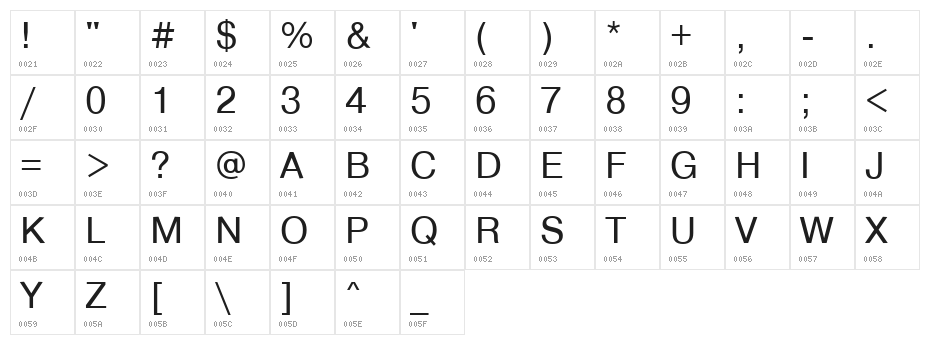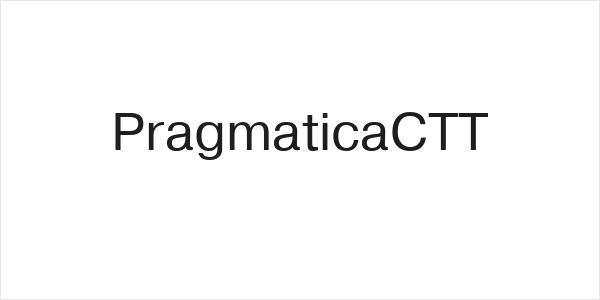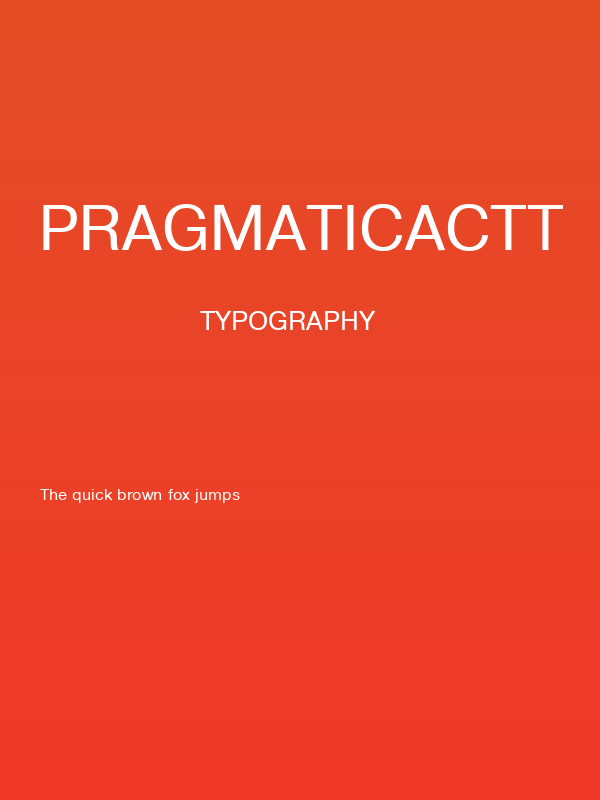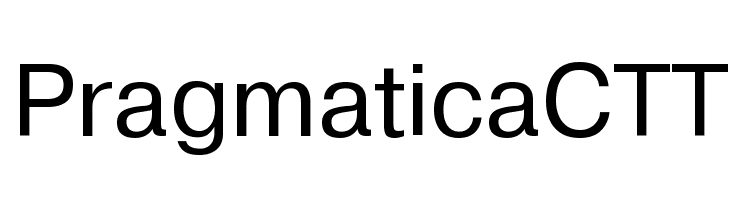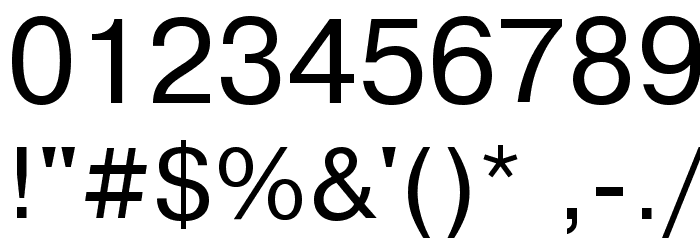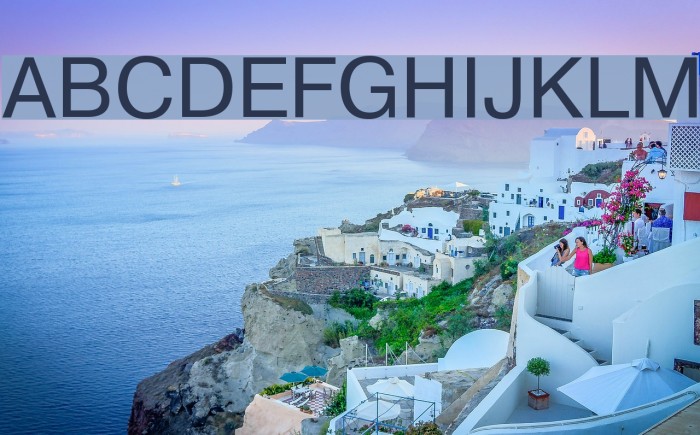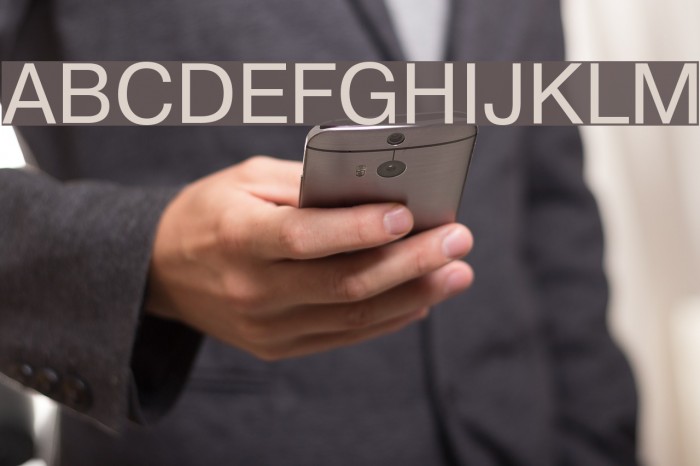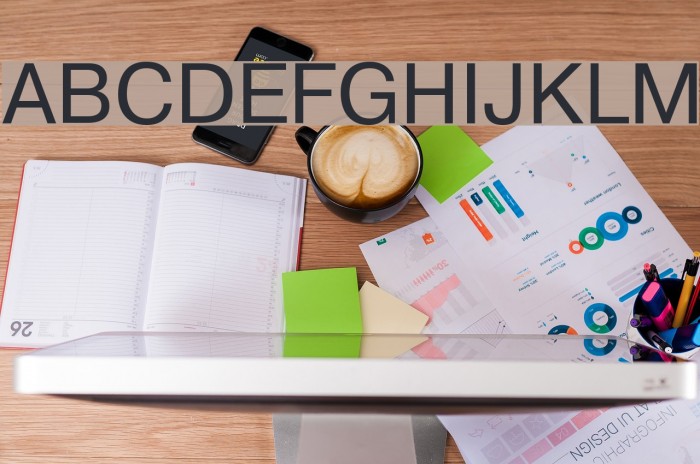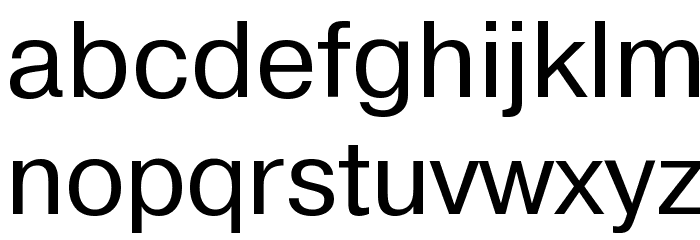
PragmaticaCTT Font
PragmaticaCTT Description
This font features a clean and modern sans-serif design, characterized by its simplicity and clarity. The letters are evenly spaced, with a consistent stroke width that provides a balanced and harmonious appearance. The uppercase and lowercase letters are well-proportioned, making it highly legible in both large and small sizes. The numerals are straightforward and align perfectly with the overall style, ensuring readability. Special characters are included, maintaining the font's cohesive look. Its versatility makes it suitable for a wide range of applications.
| Use Case | Headlines, Body text, Logos |
| Proposed Projects | Ideal for web design, corporate branding, editorial layouts, and user interfaces. |